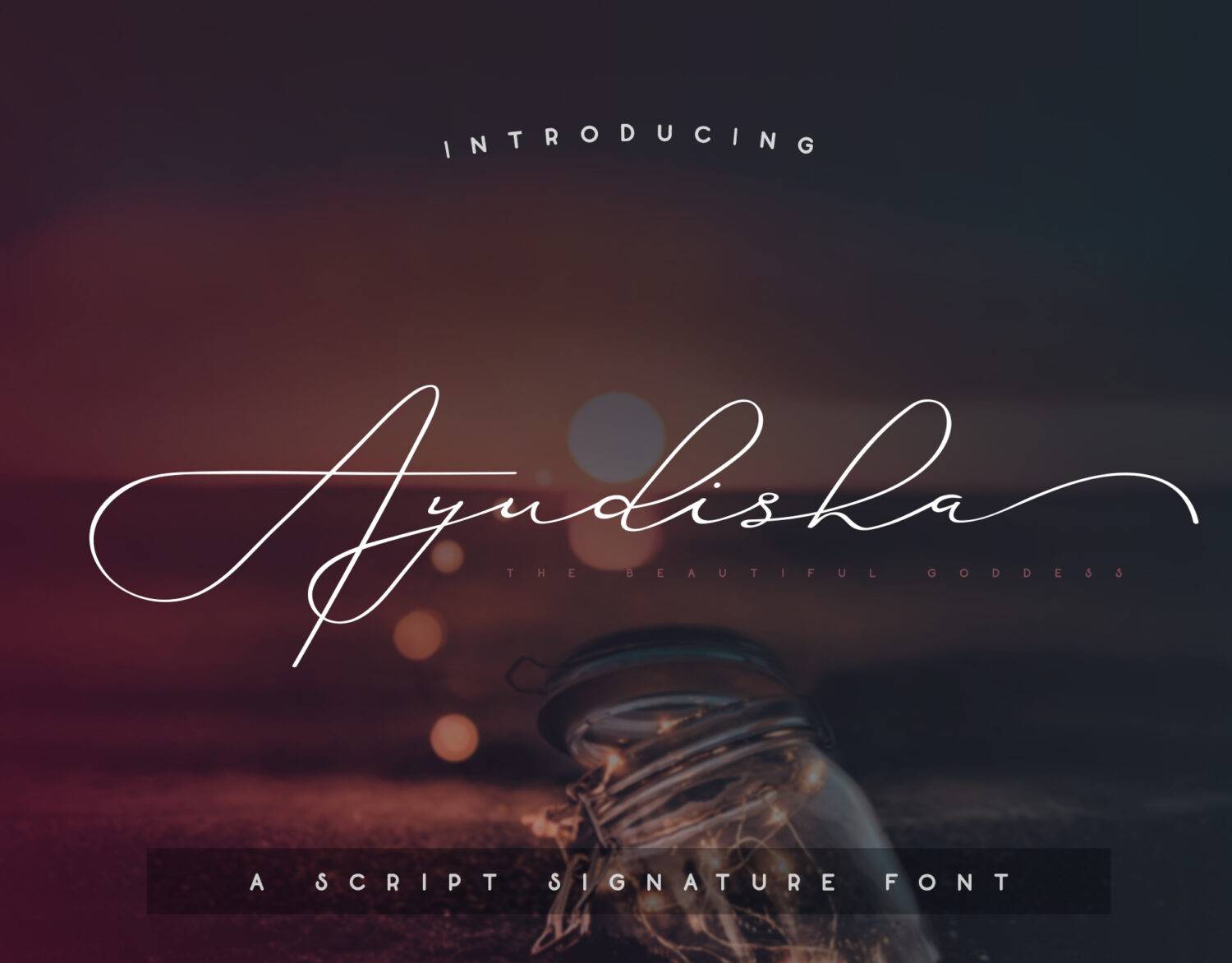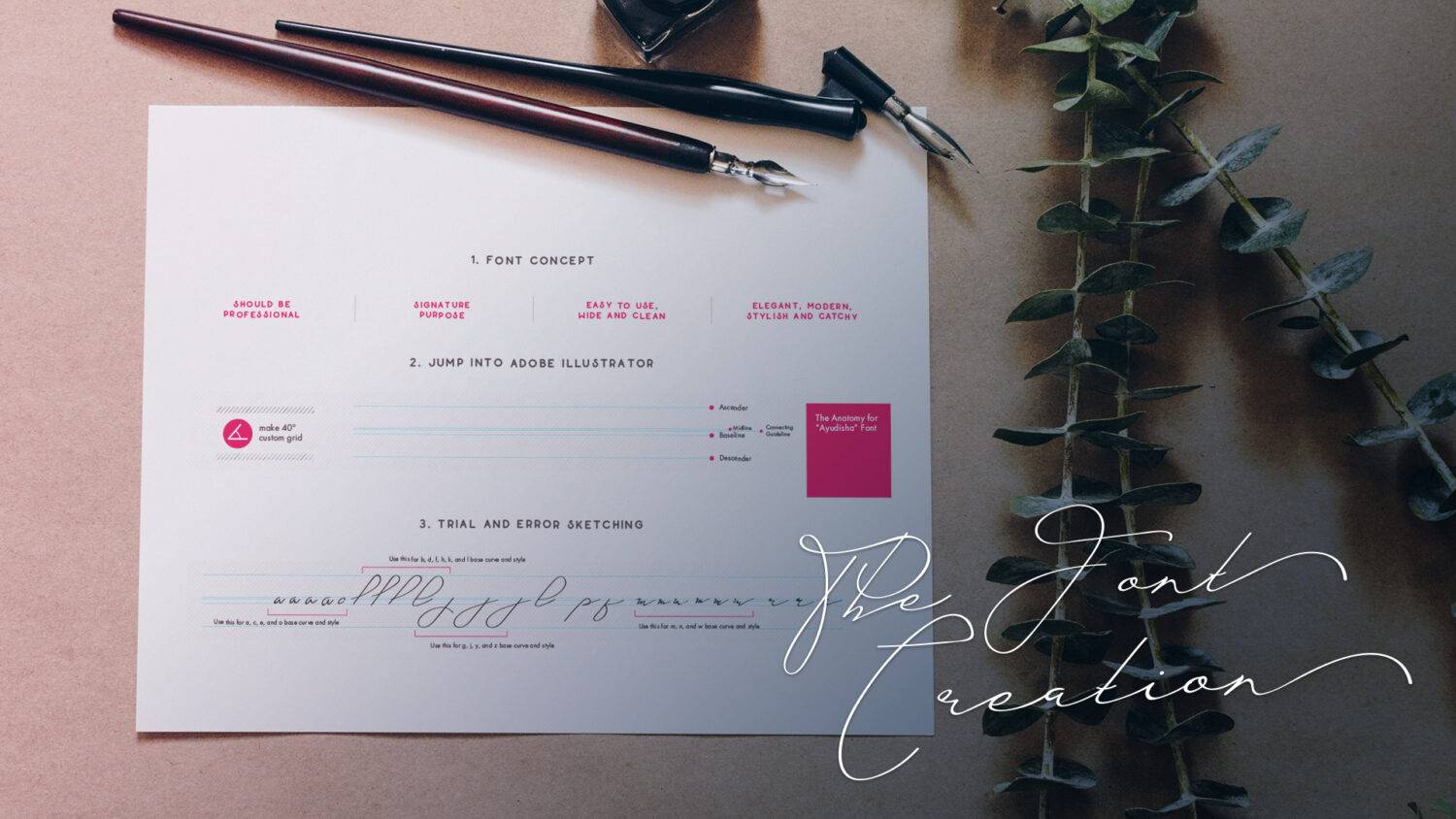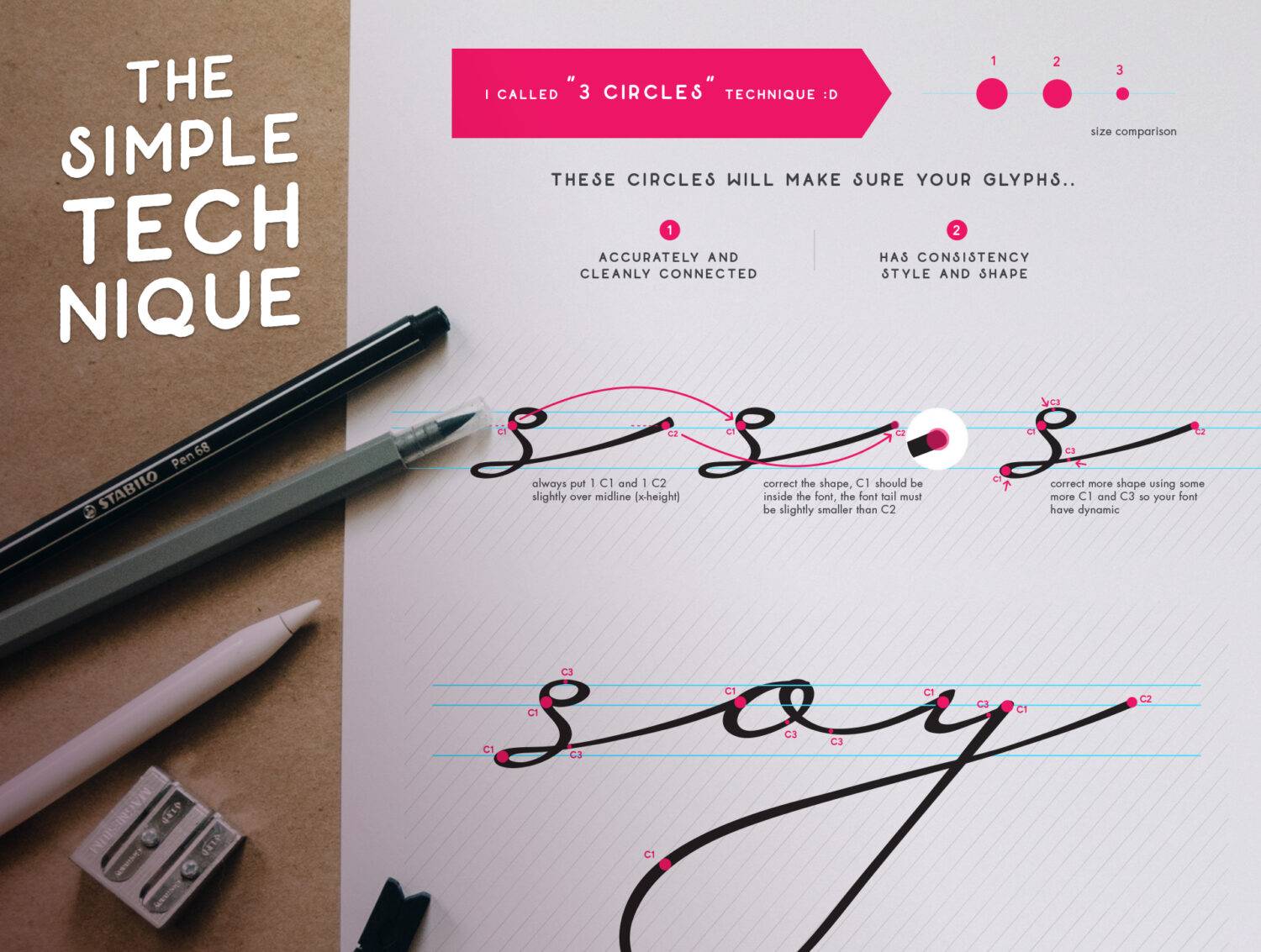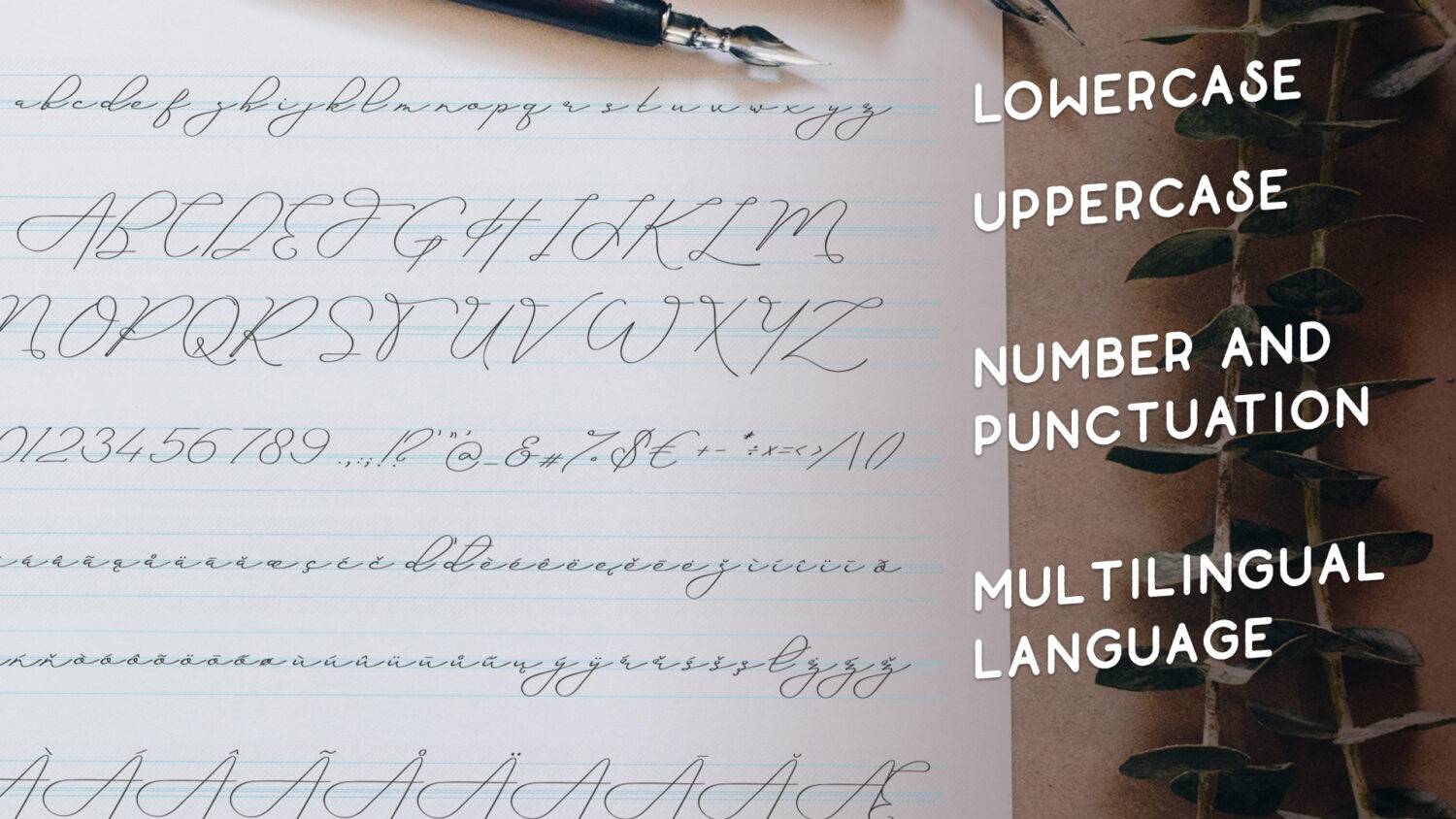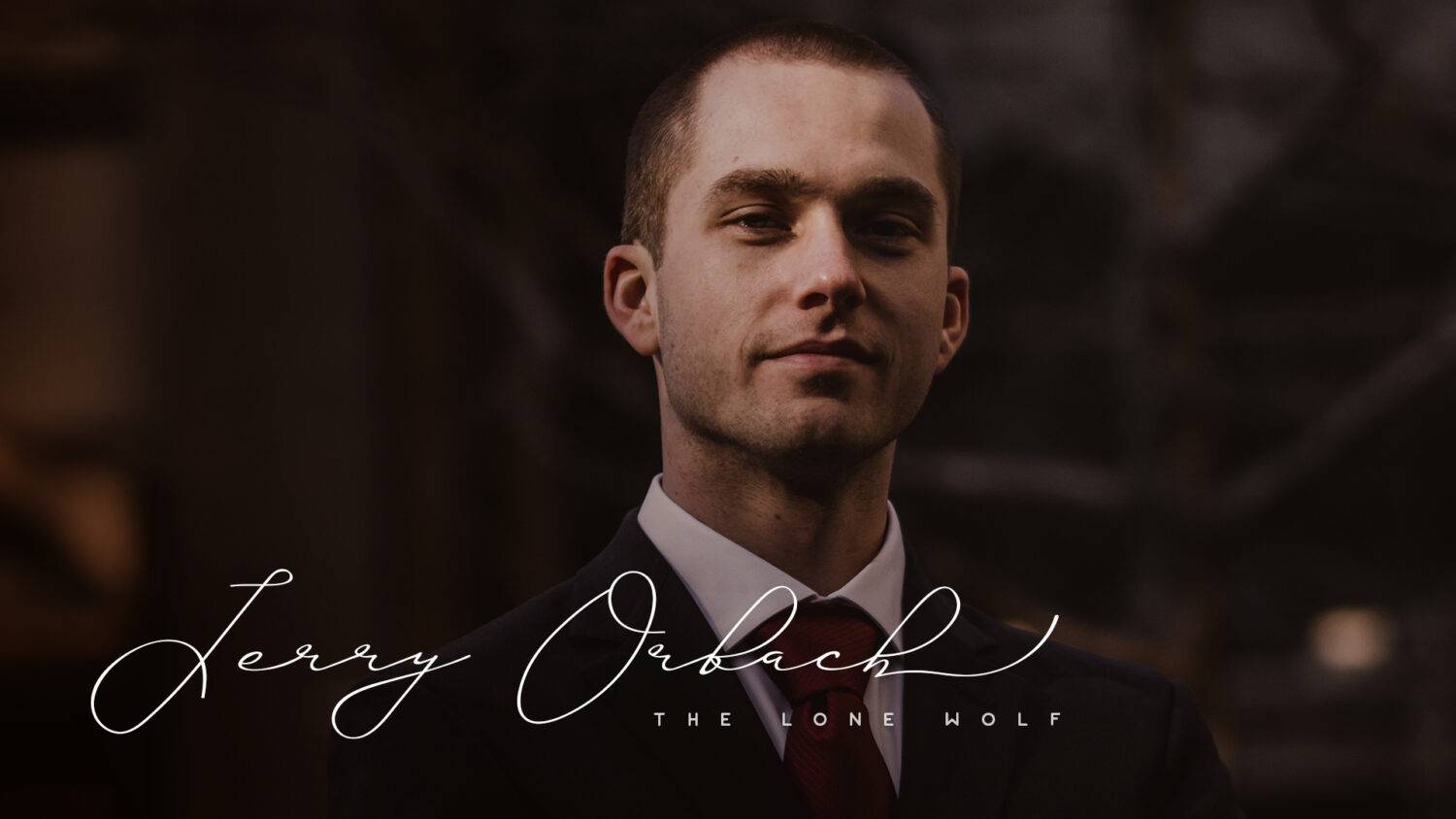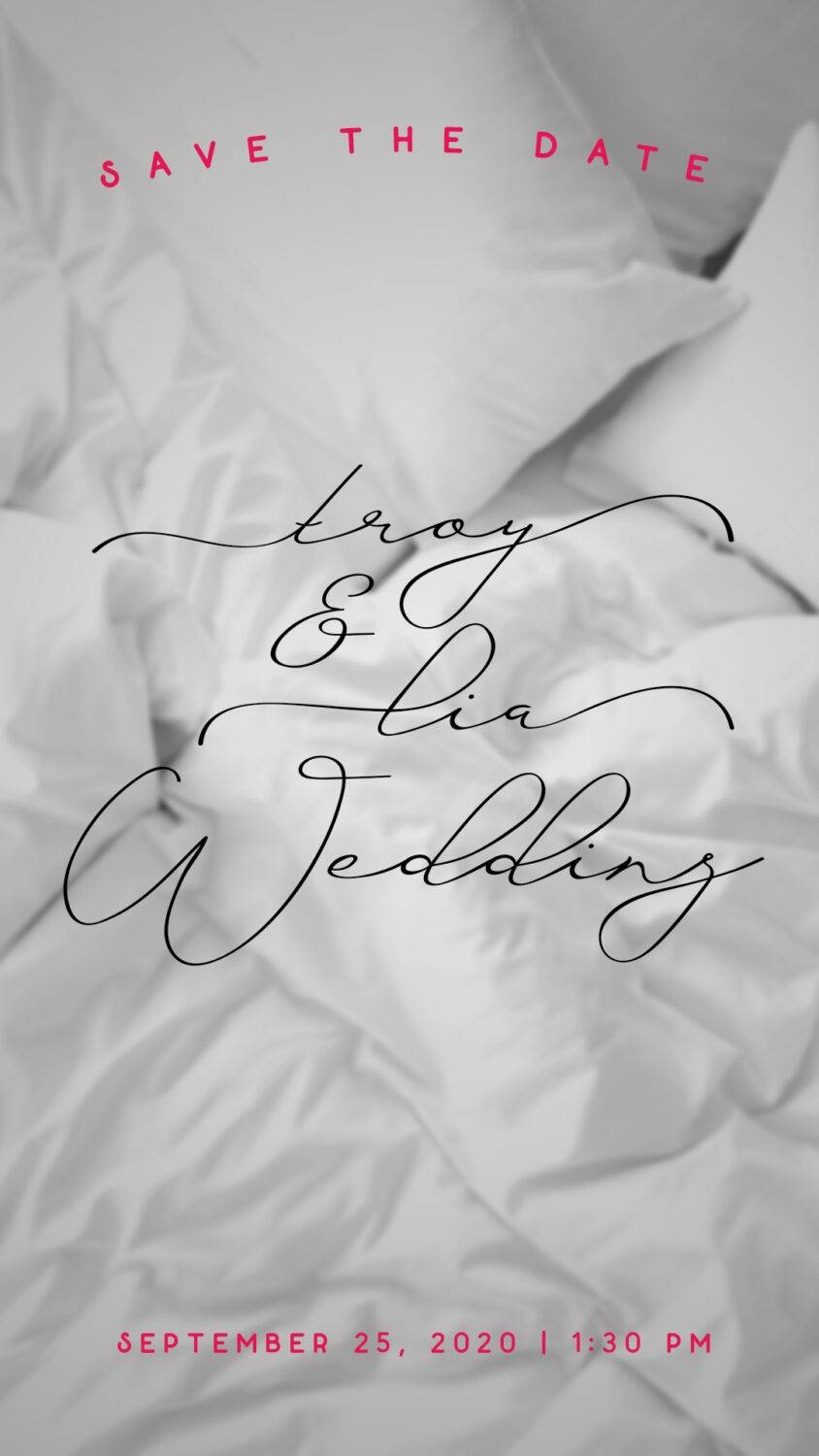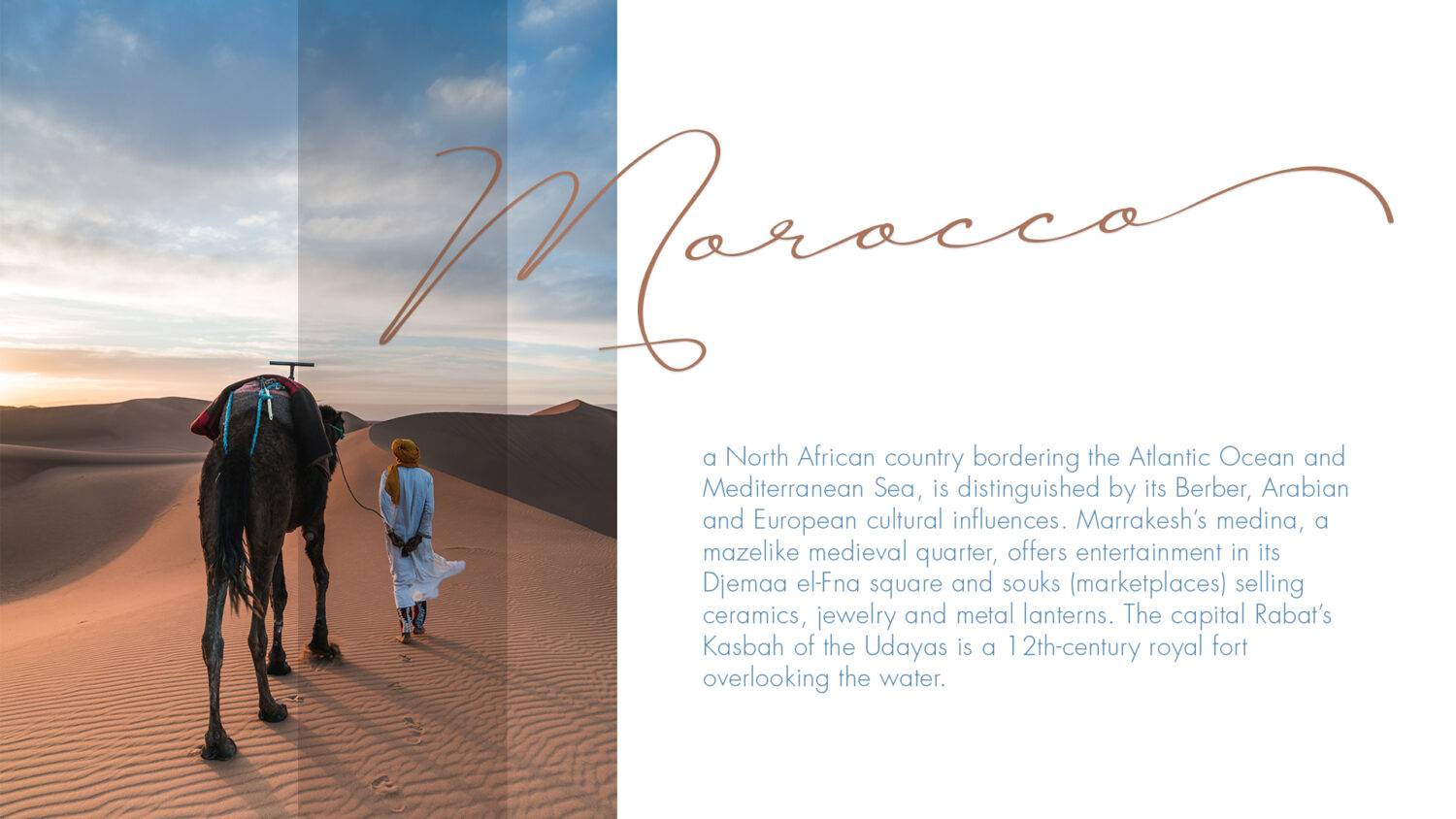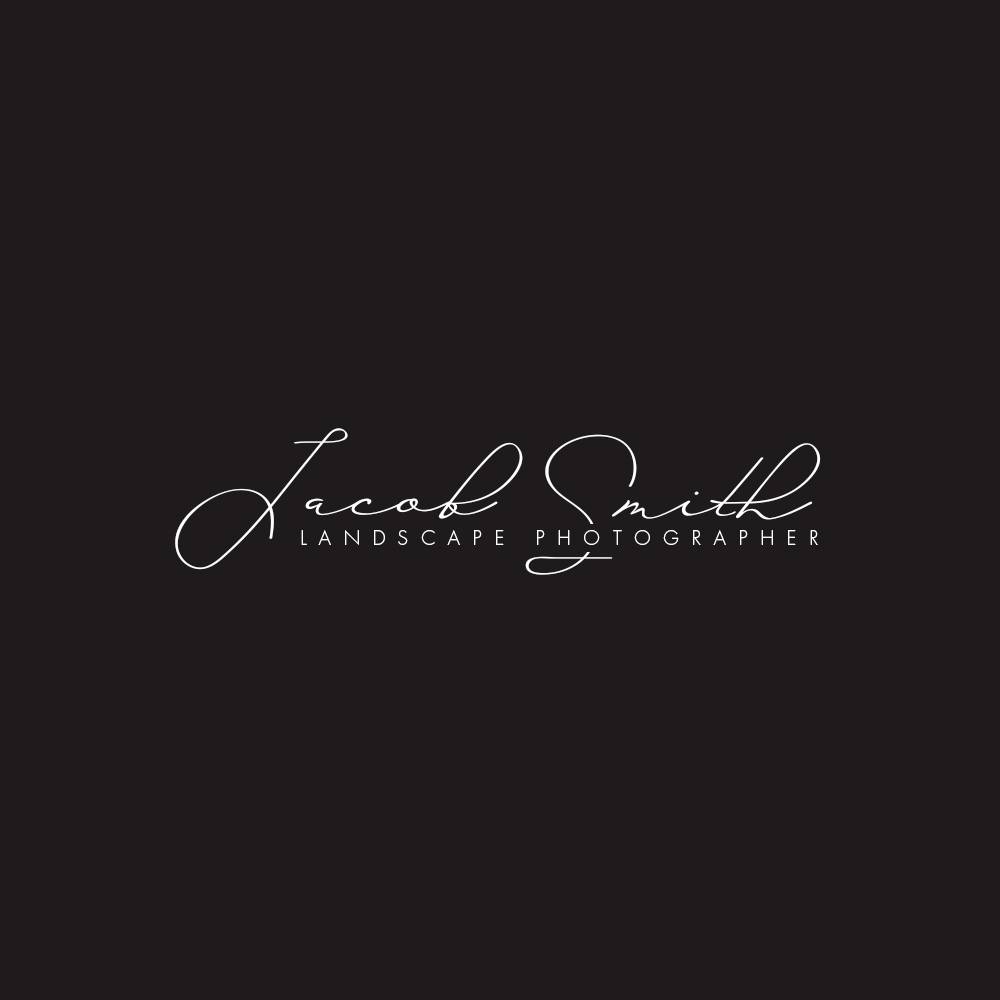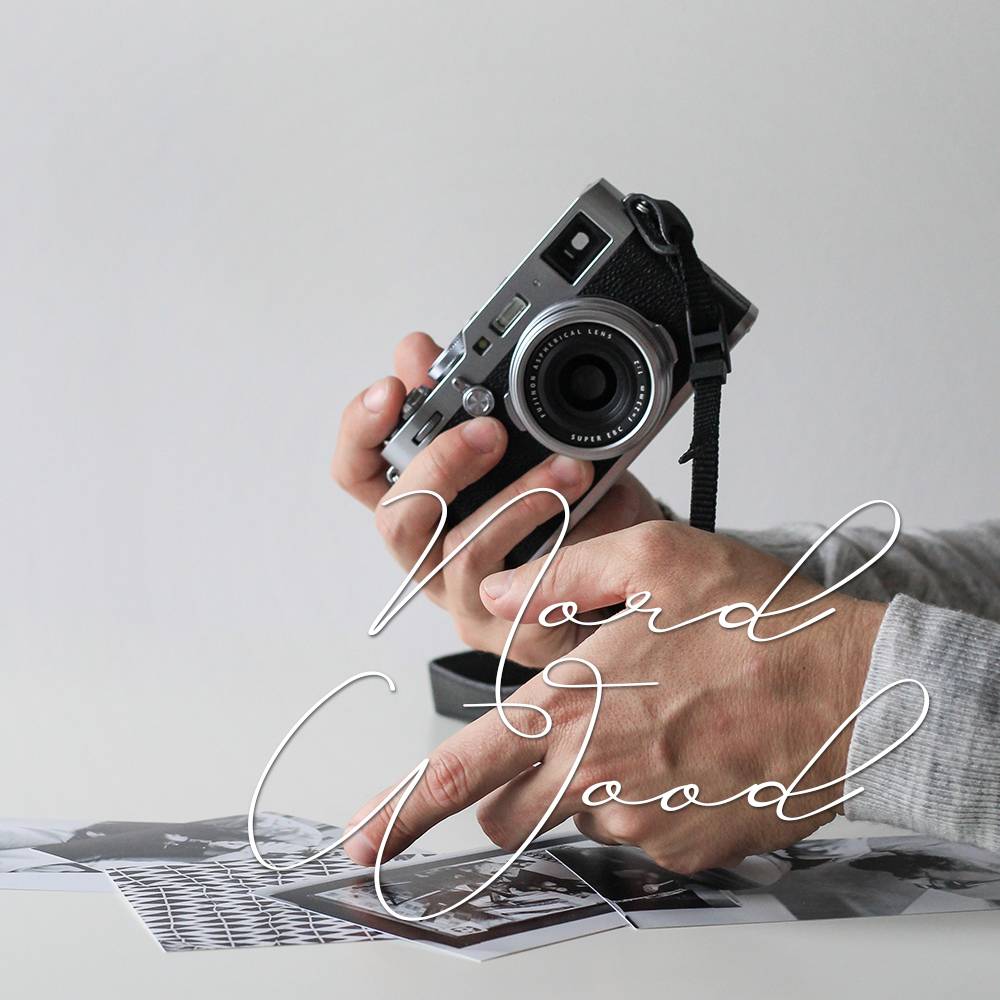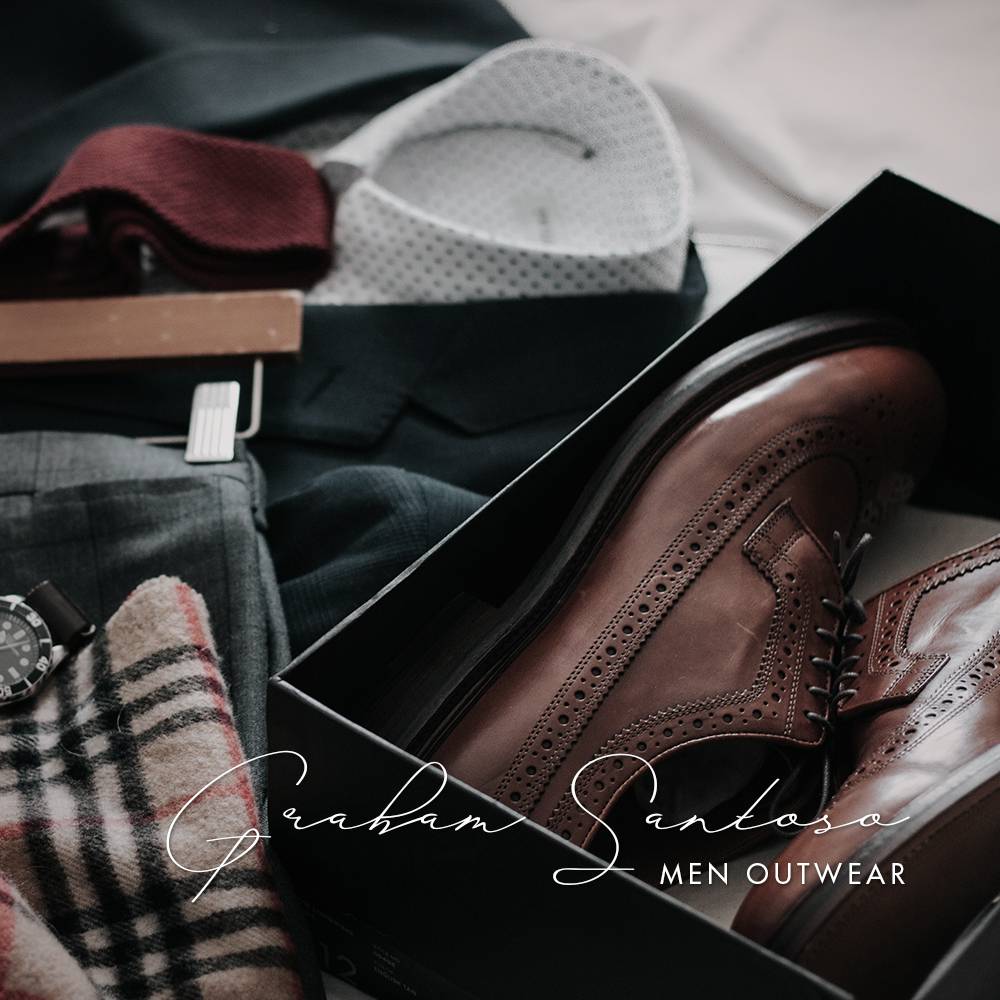
Ayudisha Script Demo is an elegant, ultra-thin script font with delicate, flowing lines that convey a refined and graceful feel. Its high contrast between fine hairlines and gentle curves makes it ideal for sophisticated branding, wedding invitations, and stylish editorial accents. This font works best where a light, airy, and personal touch is desired, adding a modern yet timeless handwritten charm.
Ayudisha Script Demo Font
About Ayudisha Script Demo Font
| Font family | Ayudisha Script Demo Font |
| Designer | Rudy Muhardika |